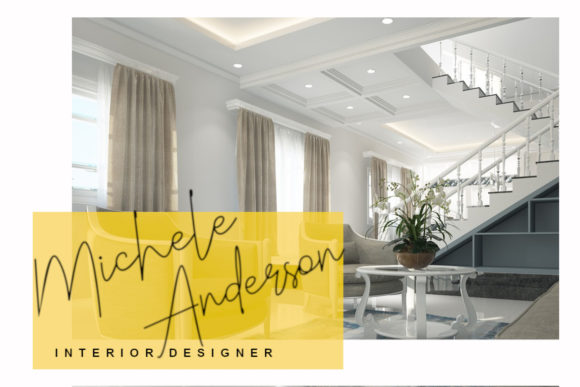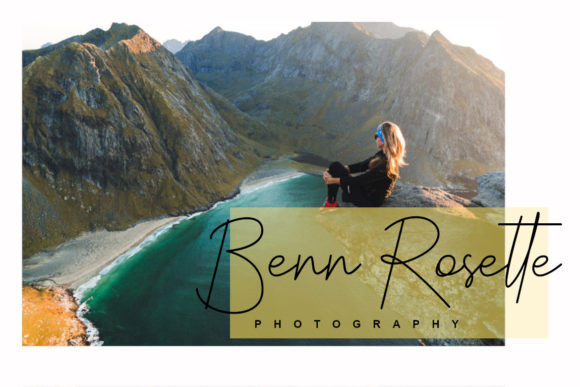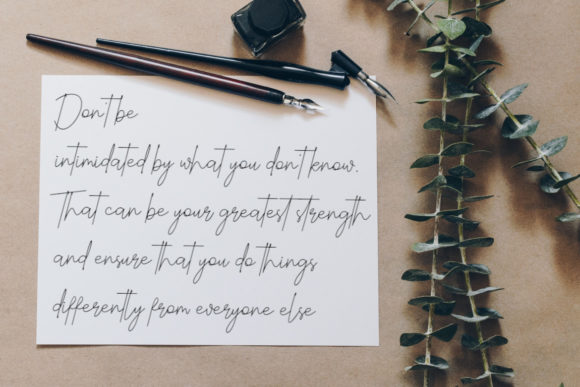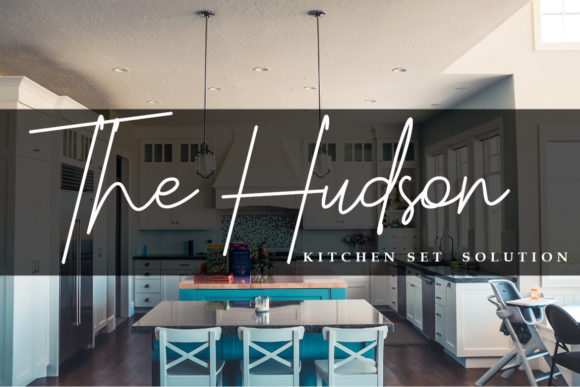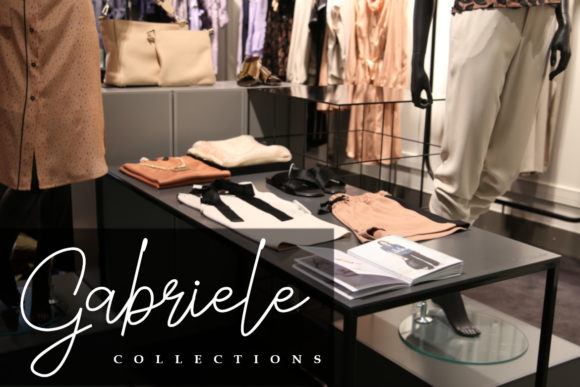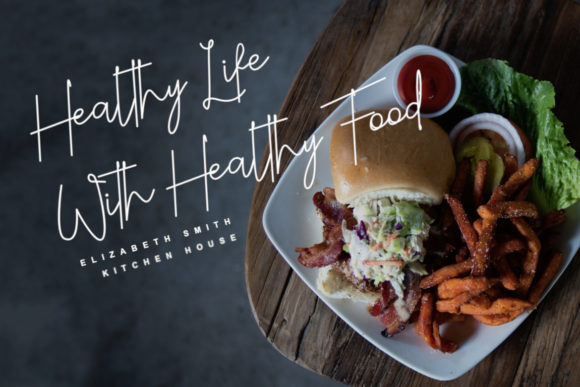
Introduction to Justwinch Signature Font
As designers, we’ve all been there – staring at a blank canvas, trying to come up with the perfect idea for a creative project. The cursor blinks on, taunting us to take action. But what if you had the perfect tool to spark your imagination? Enter the Justwinch Signature Font, a beautiful monoline signature font that adds a touch of elegance to any design.
With its natural writing style, this font is perfect for logos, wedding invitations, branding, and more. Its high-quality design makes it a valuable resource for designers looking to elevate their creative projects. And the best part? It’s available for free download, making it an accessible design resource for anyone looking to add a professional touch to their work.
Key Features of Justwinch Signature Font
- Unique Hand-Drawn Style: The Justwinch Signature Font features a distinctive hand-drawn design that adds a personal touch to any creative project.
Honest Review: Justwinch Signature Font
As a designer, I’m always on the lookout for unique and high-quality design resources. The Justwinch Signature Font is one such gem that caught my eye. I decided to give it a try, and here’s my honest review.
- High-quality typography**: The font is well-designed, with clean lines, and a modern aesthetic that’s perfect for creative projects.
- Transparent background**: This feature allows for easy customization and makes it easy to use in various design scenarios.
While the font is excellent, there are a few limitations to consider:
- Limited character set**: The font doesn’t include a comprehensive character set, which might be a problem for designers who need to create complex text-based designs.
- No bold or italic styles**: While the regular style is great, it would be nice to have bold and italic options for added versatility.
Overall, the Justwinch Signature Font is a solid addition to any designer’s toolkit. Its high-quality typography, transparent background, and free download make it an excellent choice for creative projects. While it has some limitations, it’s still a great resource that’s worth exploring.
The Justwinch Signature Font is a high-quality design resource that offers a free download for creative projects. This versatile font is ideal for designers and artists looking for a unique and stylish typography solution.
To get the most out of the Justwinch Signature Font, use it on a transparent background to create a clean and modern design. Experiment with different font sizes and styles to add depth and visual interest to your project.
Common Use Cases for Justwinch Signature Font
The Justwinch Signature Font is ideal for creative projects such as:
- Branding materials